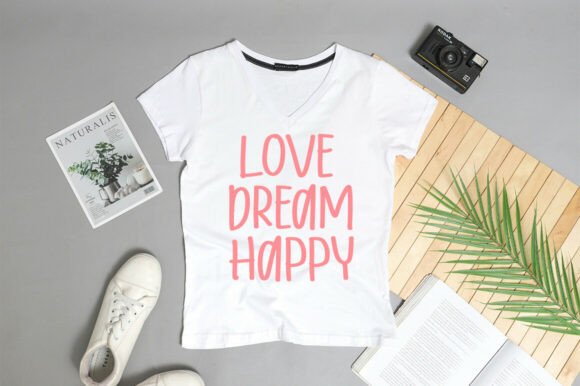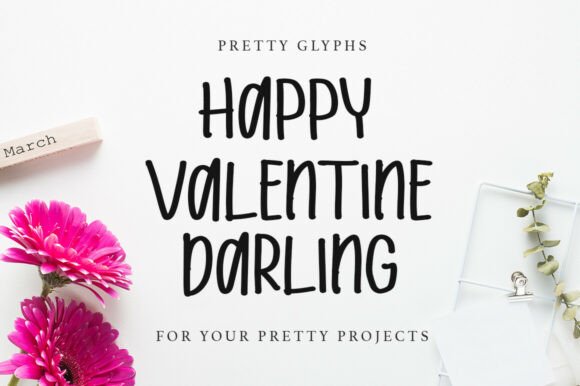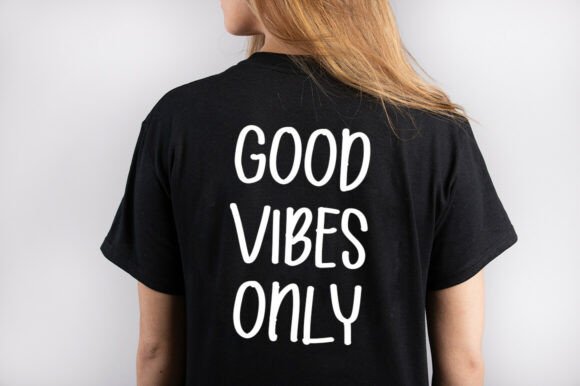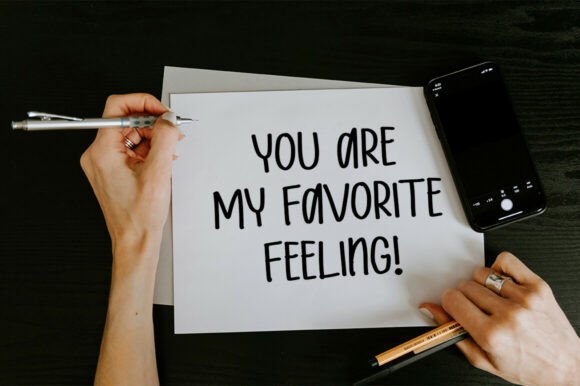
Introduction to Rainbow Sunday Font Font
Fonts play a crucial role in design, and the Rainbow Sunday Font font is a typeface that brings both character and versatility to any project. Whether you’re working on a branding project, a website, or a print design, the Rainbow Sunday Font font offers a unique style that can elevate your work.
Brighten your creative outlook with Rainbow Sunday, a charming handwritten display font that captures a “carefree-weekend” soul.
This typeface features tall, slender letterforms with a rhythmic, hand-penned bounce and a soft, ink-brushed texture With its approachable weight and whimsical irregular baseline, Rainbow Sunday is the premier choice for independent boutique branding, artisanal gift packaging, romantic stationery design, and engaging “lifestyle-vibe” social media headers.
Key Features of Rainbow Sunday Font Font
Why Choose Rainbow Sunday Font Font?
The Rainbow Sunday Font font is more than just a typeface – it’s a design tool that helps you communicate your message with style and clarity. Its unique character set and versatile design make it suitable for a wide range of applications, from elegant invitations to bold headlines.
With its carefully crafted letterforms and balanced proportions, the Rainbow Sunday Font font ensures readability and visual appeal across all mediums.
What makes Rainbow Sunday Font font special?
The Rainbow Sunday Font font stands out with its unique design, exceptional readability, and versatility across various design applications.